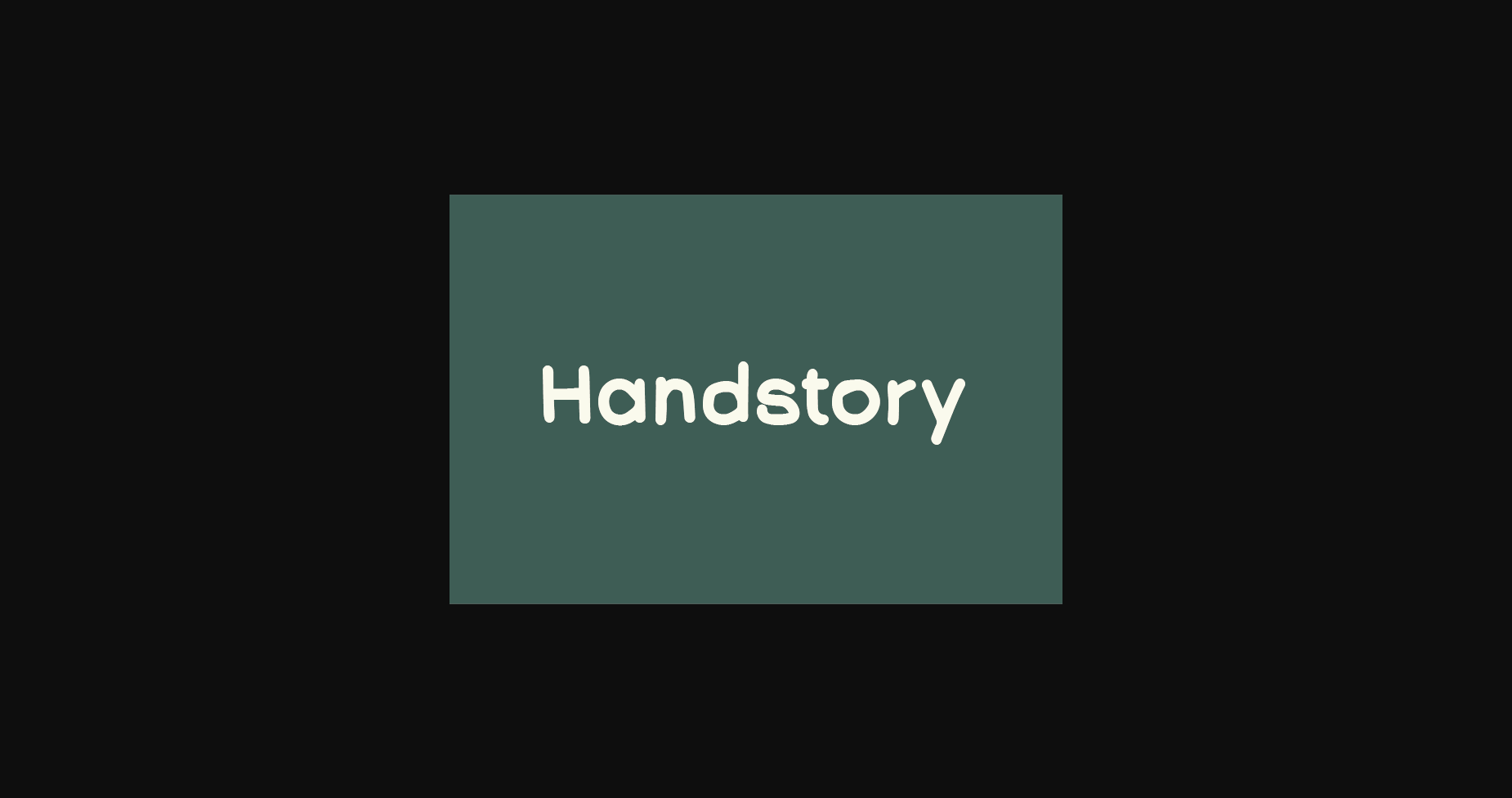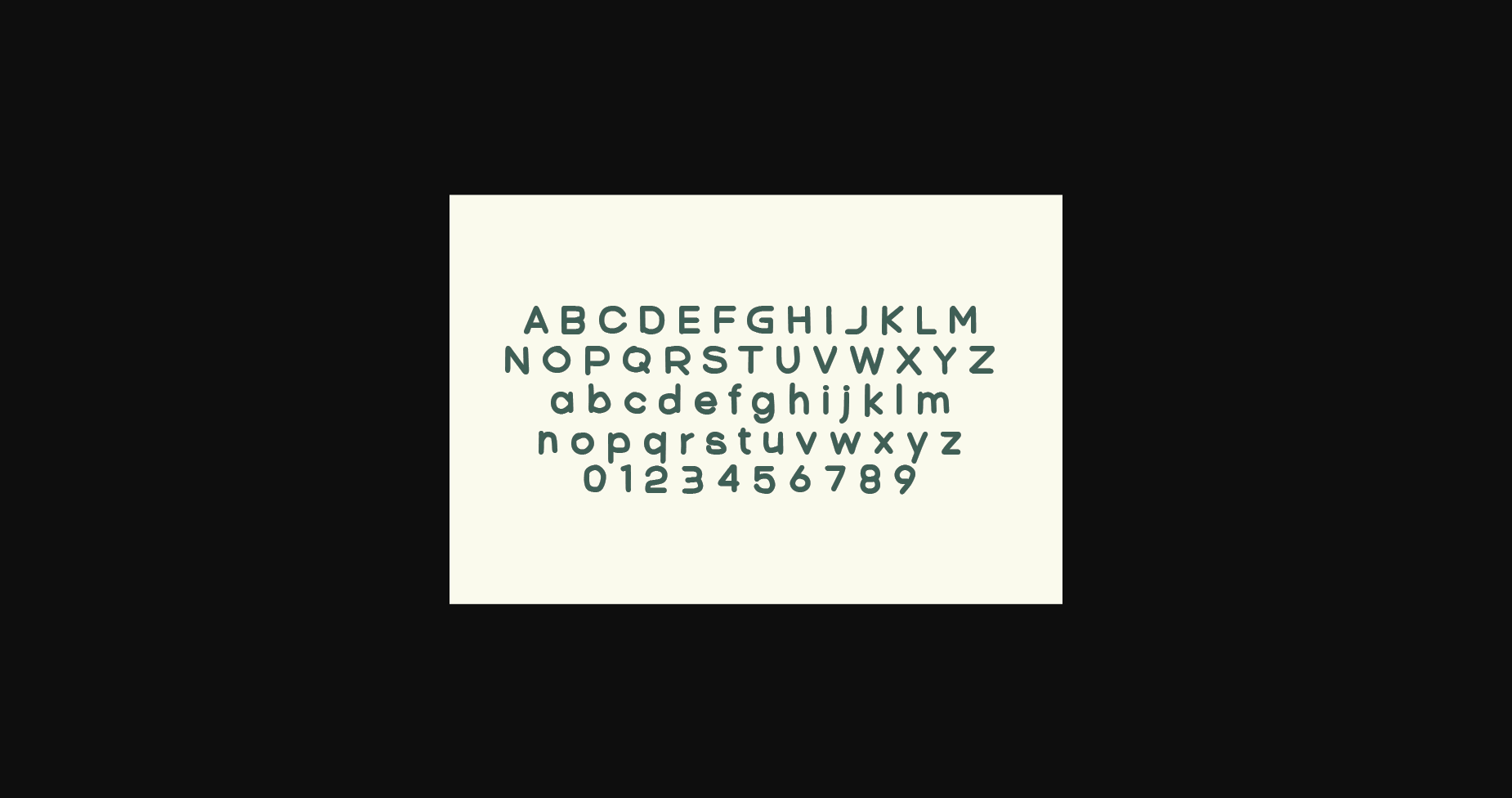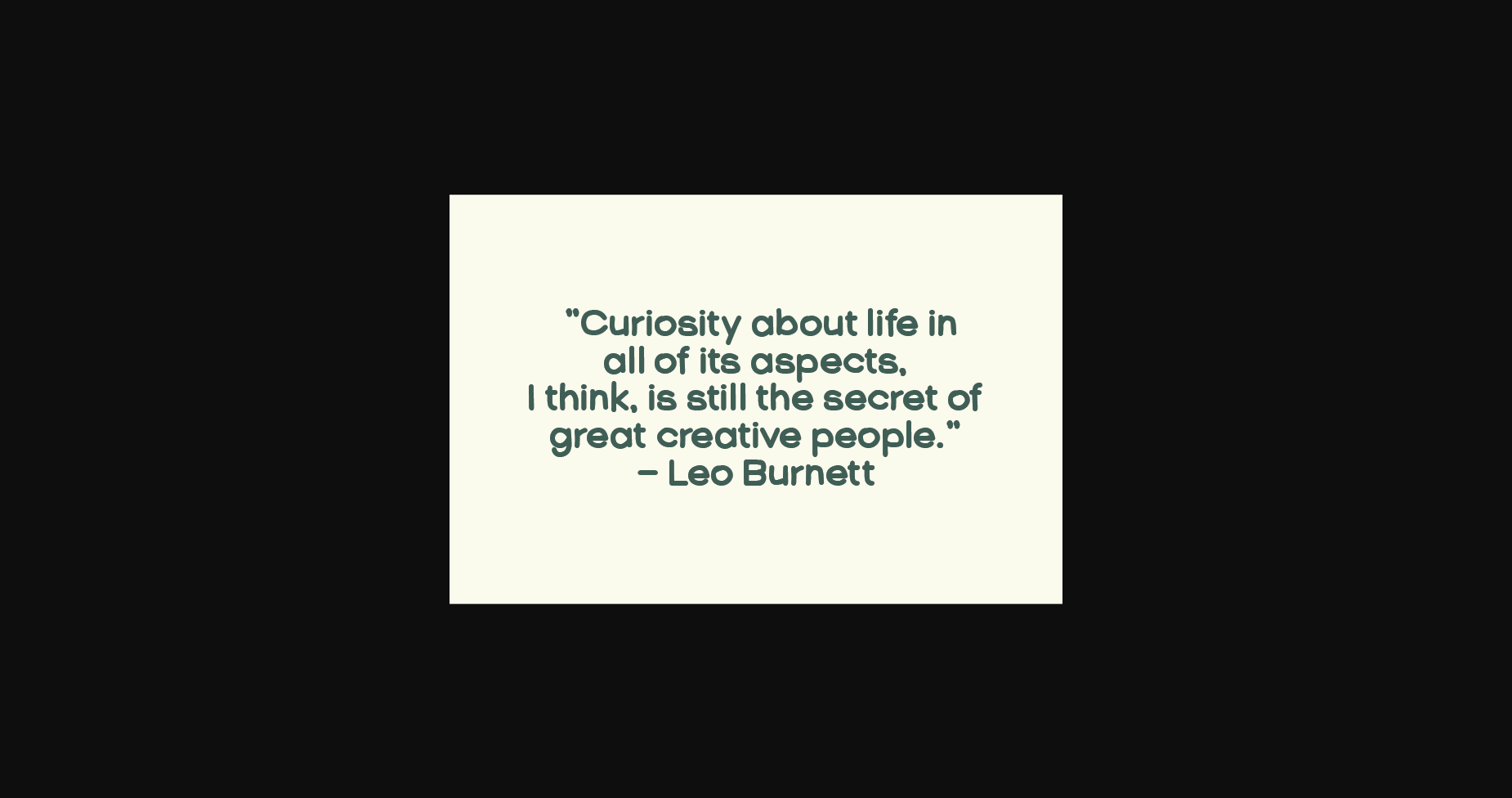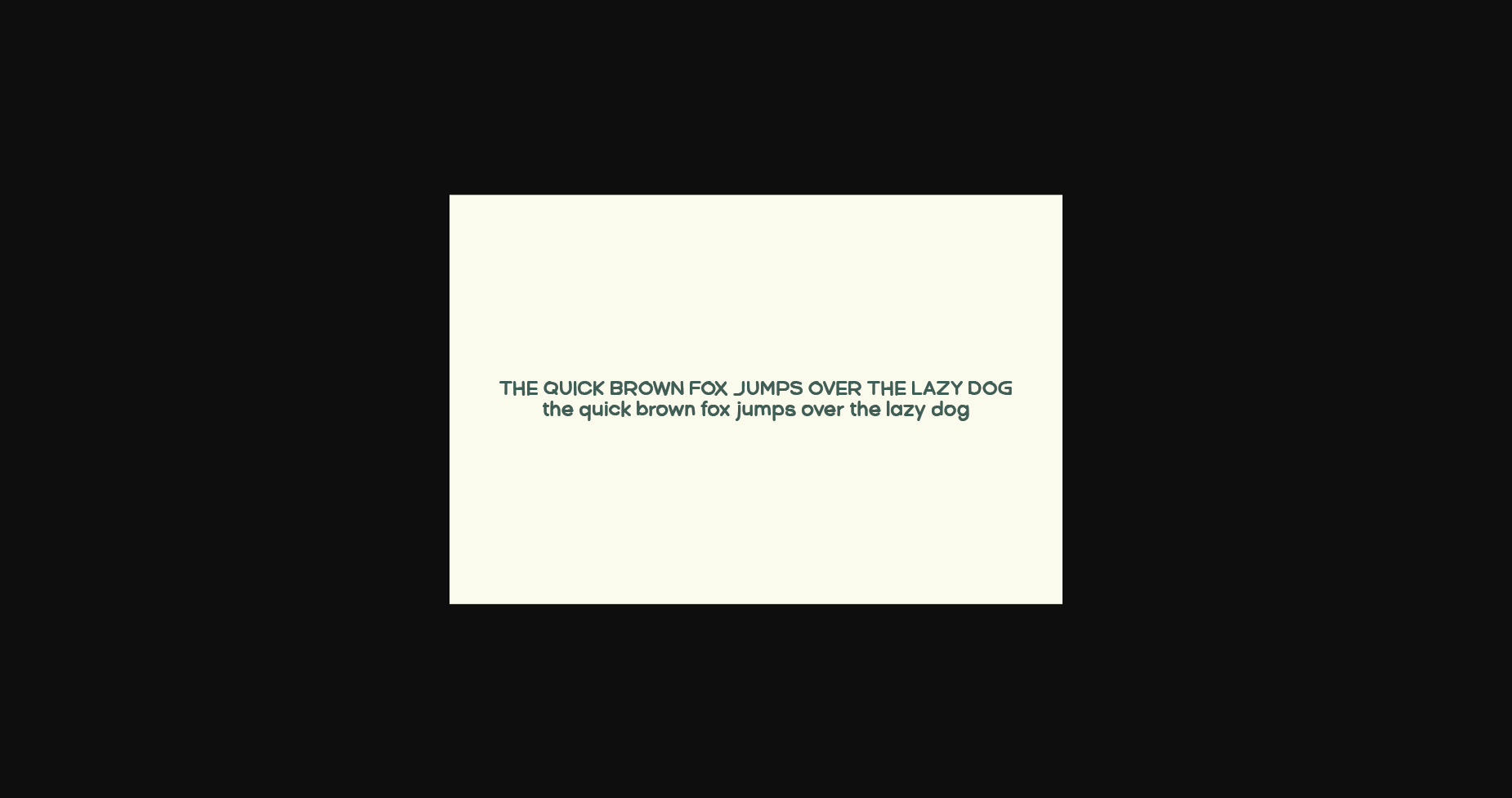
Handstory Font
About Handstory Font
Handstory is a natural handwritten font without changing a single node in each character’s indentation, this makes this font very interesting and unique. Perfect for quotes, notes, tees, and any product design.